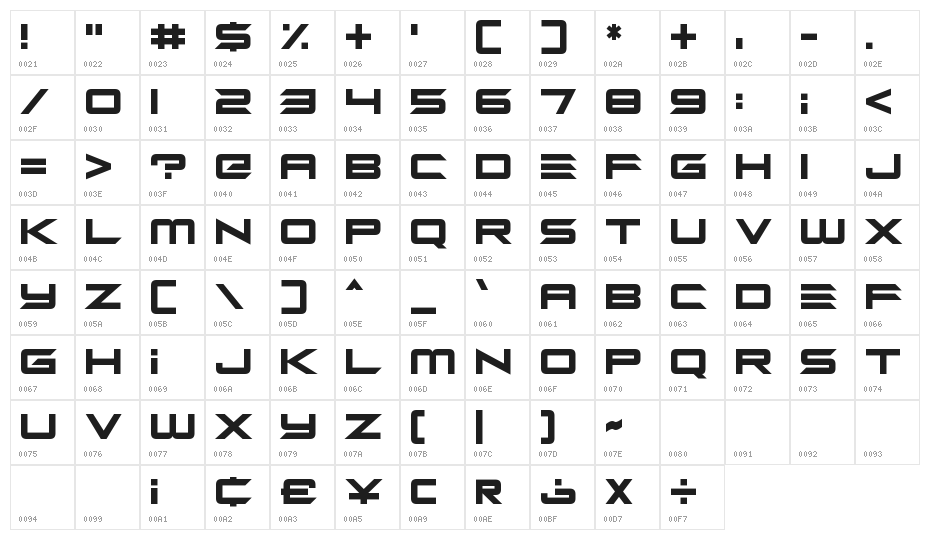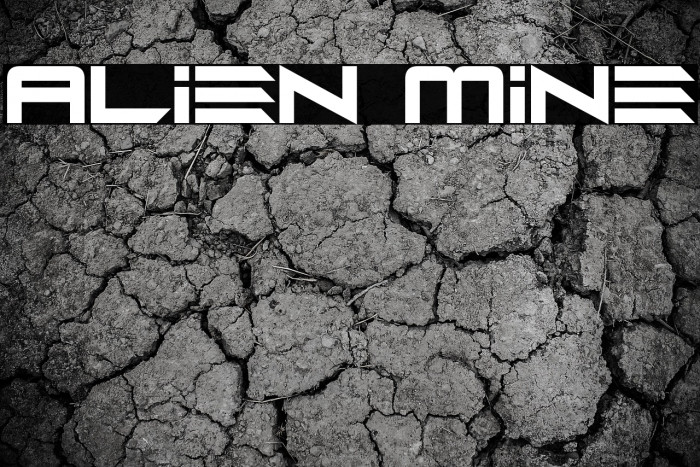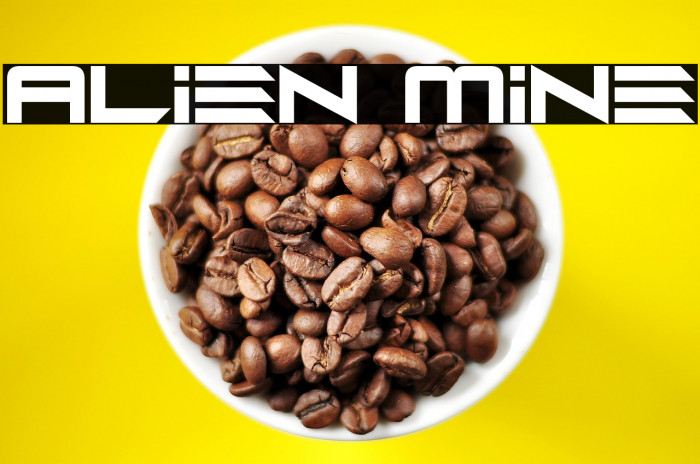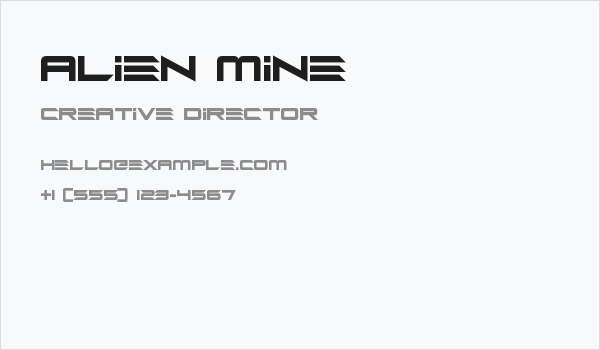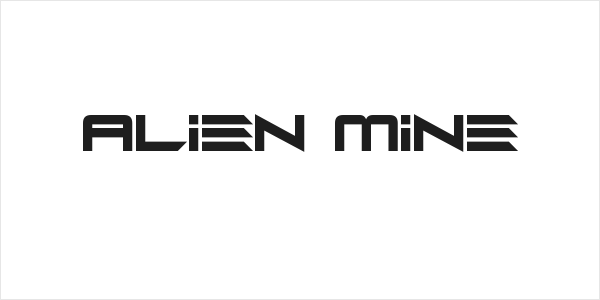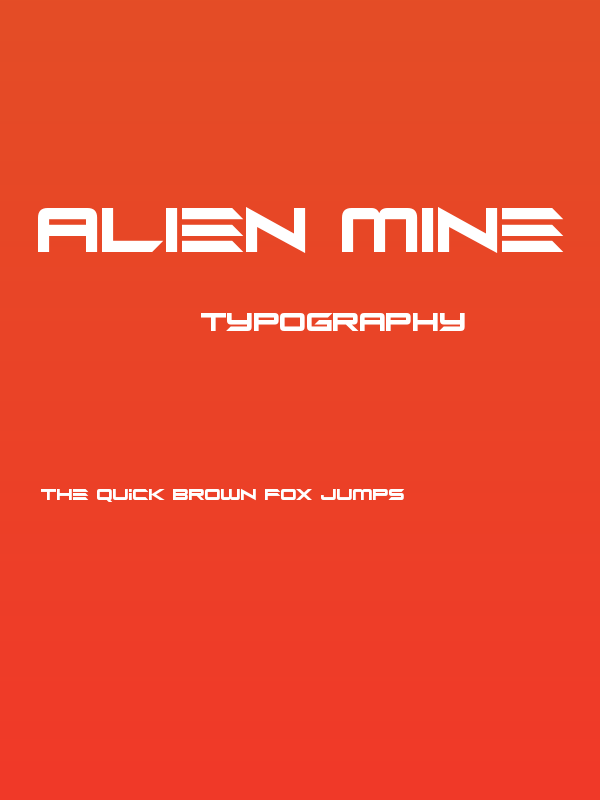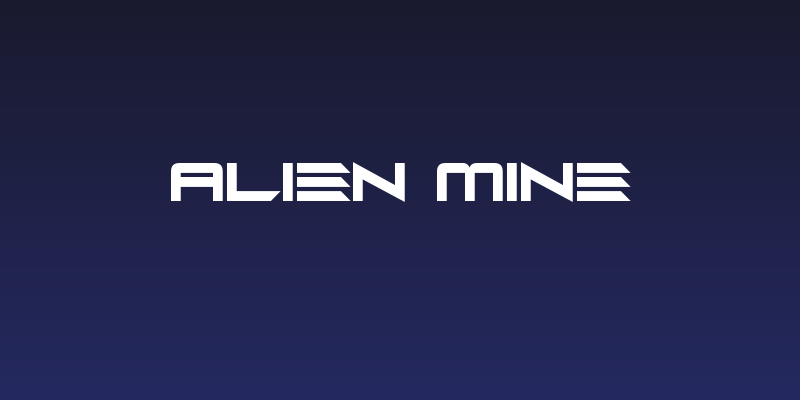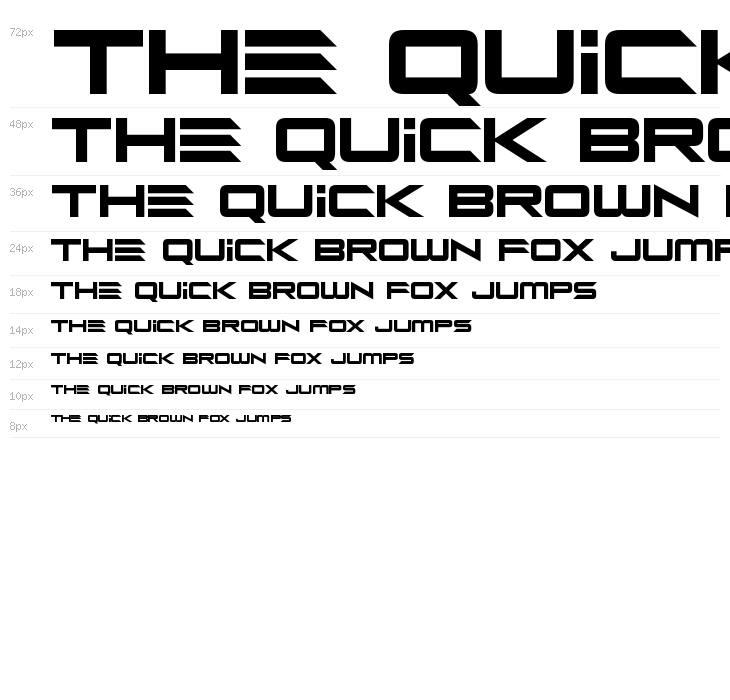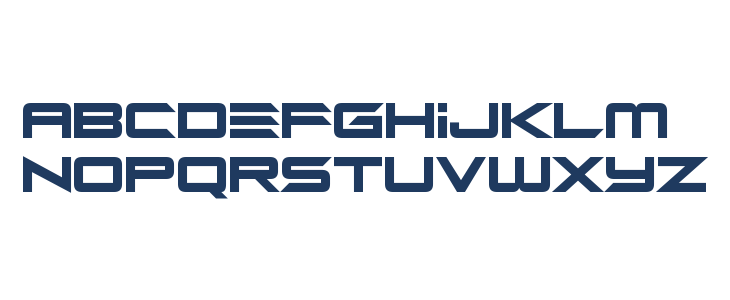
Alien Mine Font
Alien Mine Description
This futuristic font features a geometric and angular design, characterized by sharp edges and a bold presence. The uppercase and lowercase letters maintain a consistent style with distinct cutouts and slashes that give it a high-tech, sci-fi appearance. The numerals and special characters follow the same design principles, ensuring uniformity across all glyphs. Its unique style makes it stand out, suitable for projects that require a modern and edgy look.
| Overall Style | Futuristic |
| Proposed Projects | Ideal for video game titles, sci-fi movie posters, tech branding, and futuristic-themed designs. |